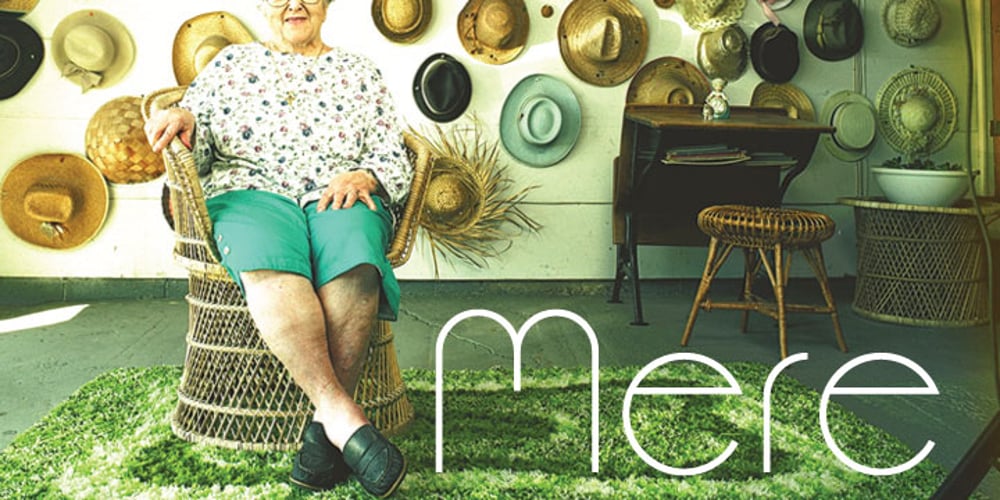
Mere Font Family was designed by Joshua Grzybowski and published by Josh Grzybowski. Mere contains 1 styles and family package options. Loosely based on a Jan Tschichold specimen, Mere is a clean geometric sans-serif with simple lines that are best viewed as larger print but still have an impact at smaller point sizes. In addition to ligatures and fractions, Mere’s other OpenType features include old style numbers and small caps.